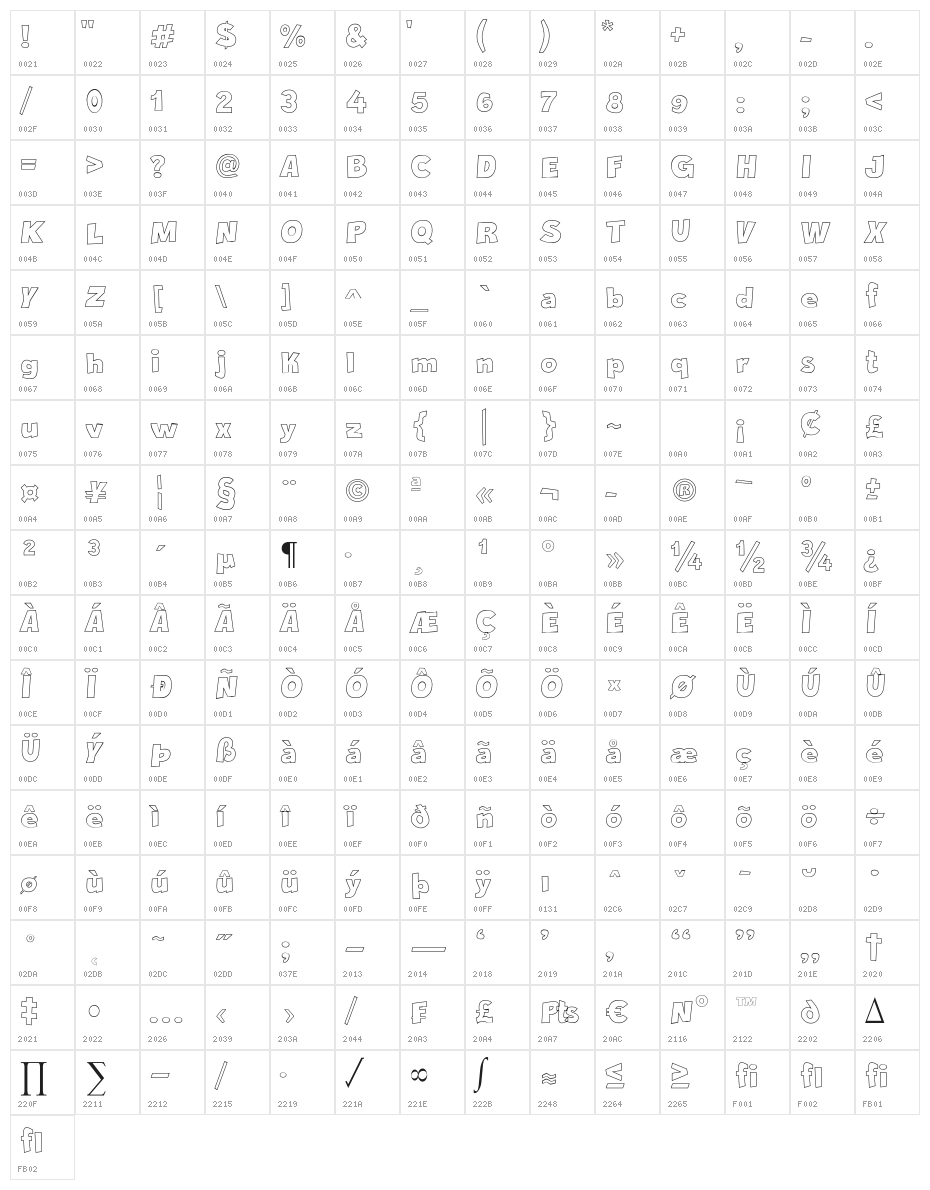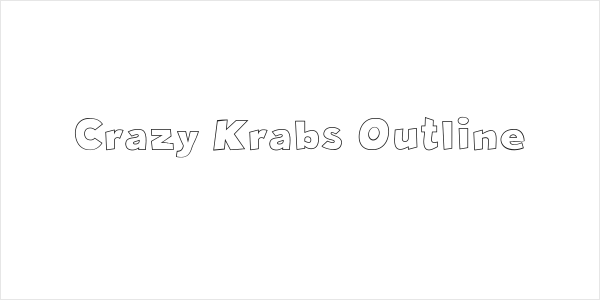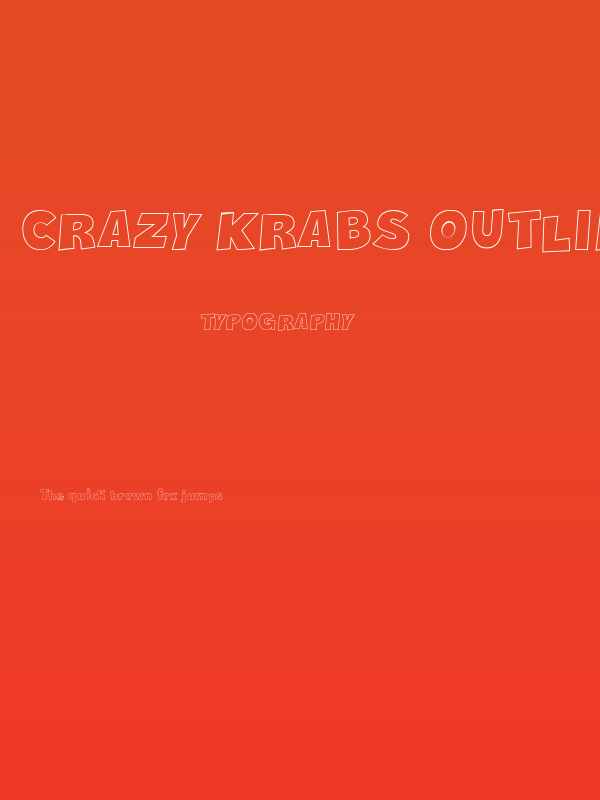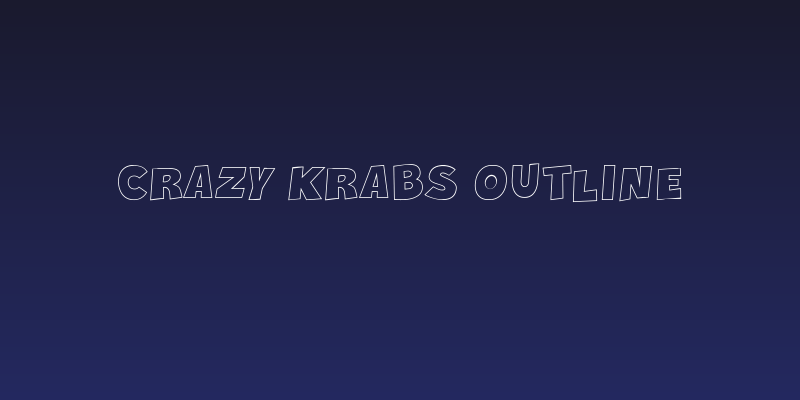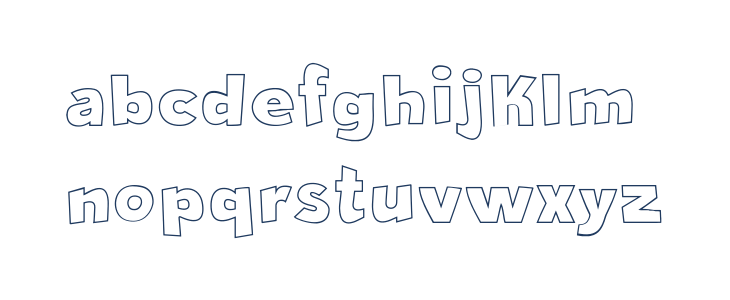
Crazy Krabs Outline Font
Crazy Krabs Outline Description
This playful and bold font features an outline style that gives it a fun and dynamic appearance. The characters are slightly irregular, adding a whimsical touch to the overall design. The uppercase and lowercase letters maintain a consistent style, with rounded edges and a cartoonish feel. Numbers and special characters are also included, matching the playful aesthetic. This font is perfect for projects that require a lighthearted and energetic vibe, such as children's books, party invitations, or playful branding.
Overall StylePlayful, Cartoonish, Fun
Proposed ProjectsIdeal for children's books, party invitations, playful branding, and creative posters.